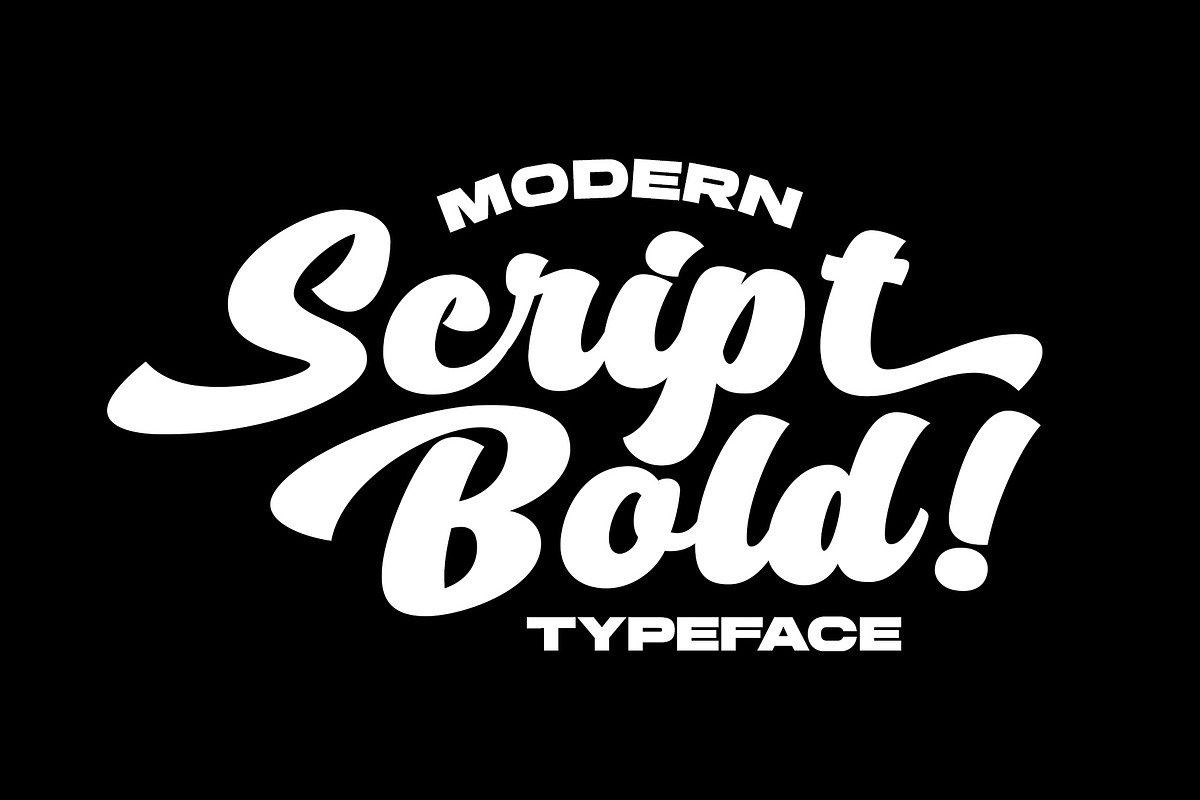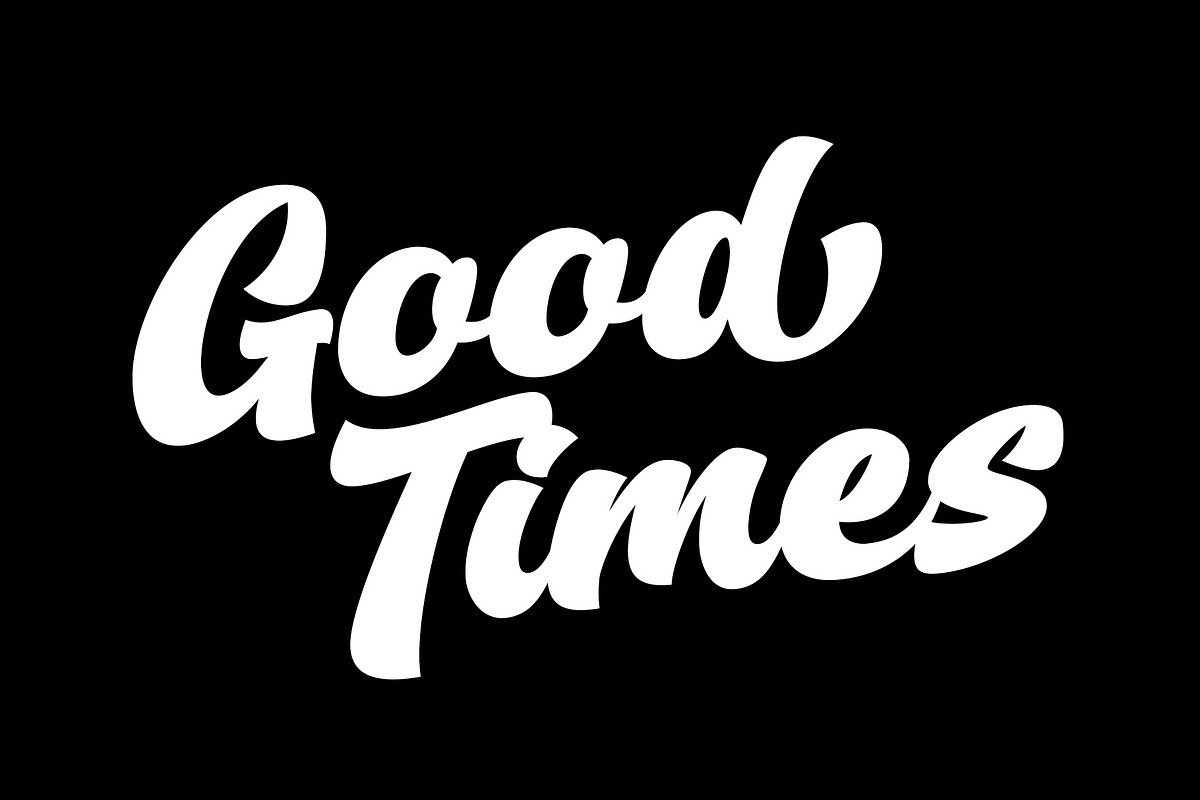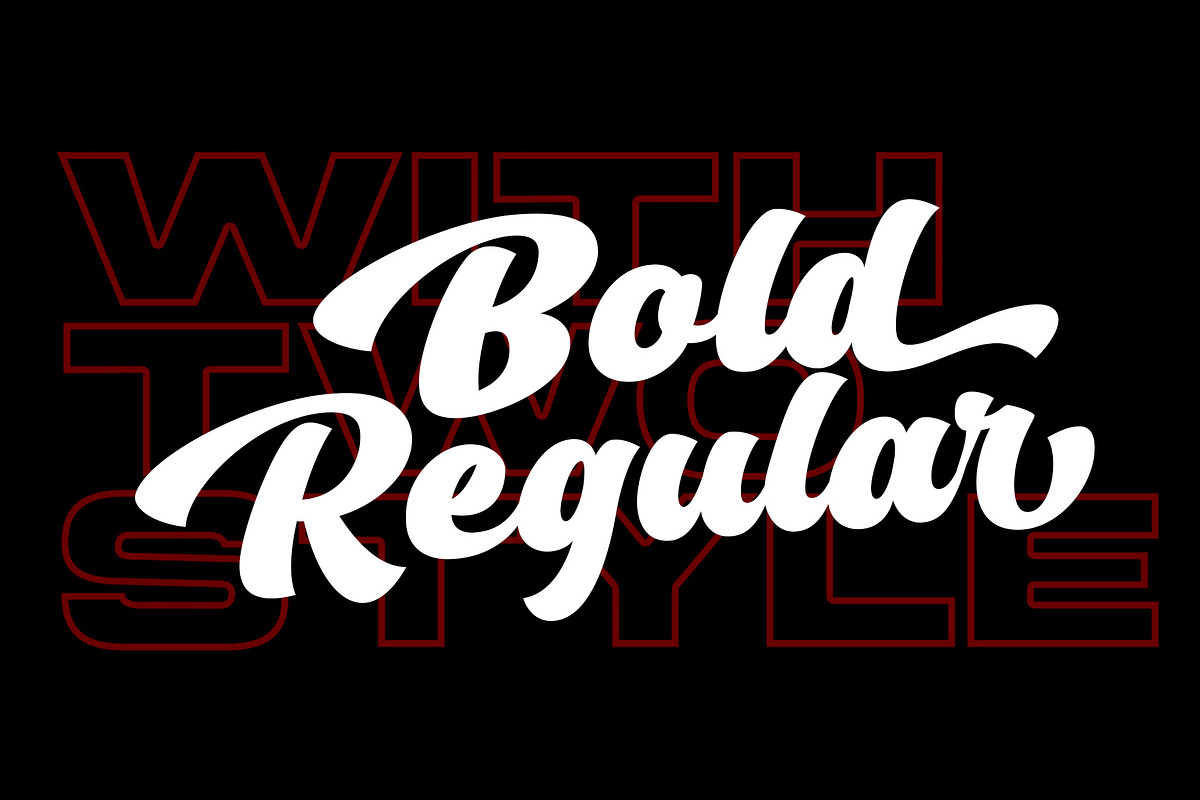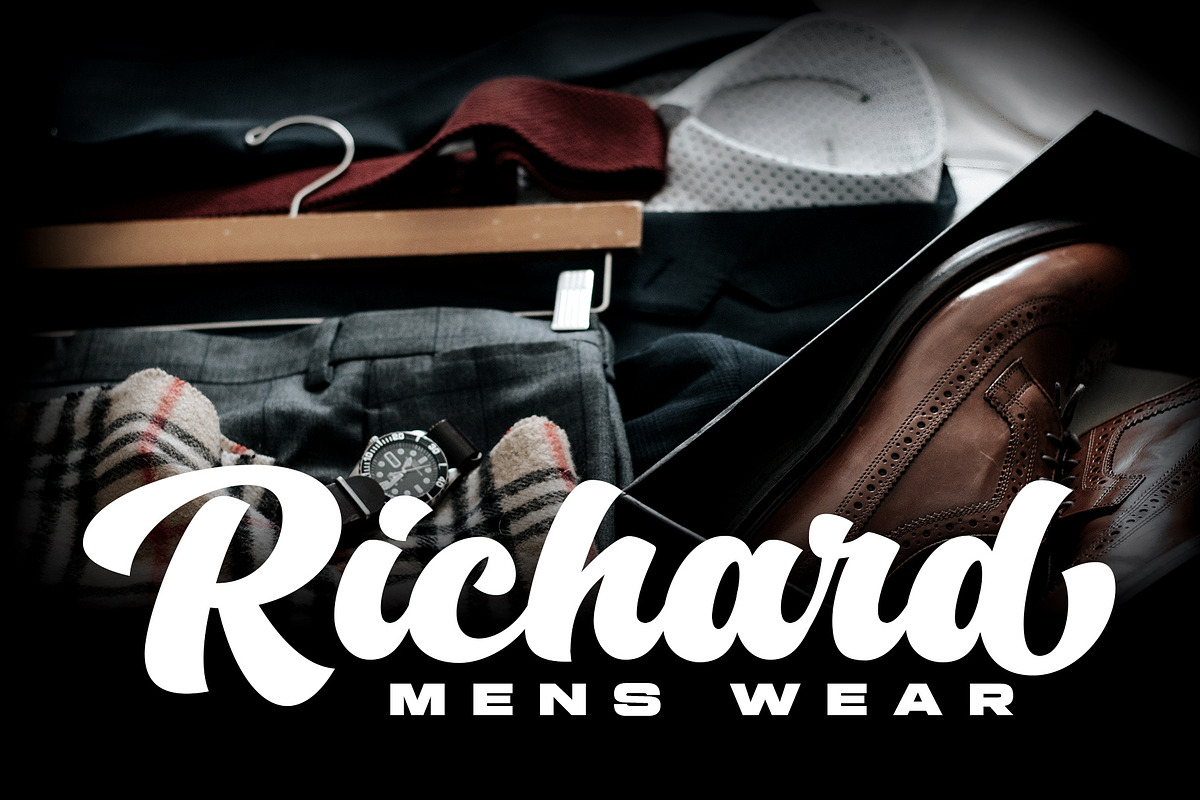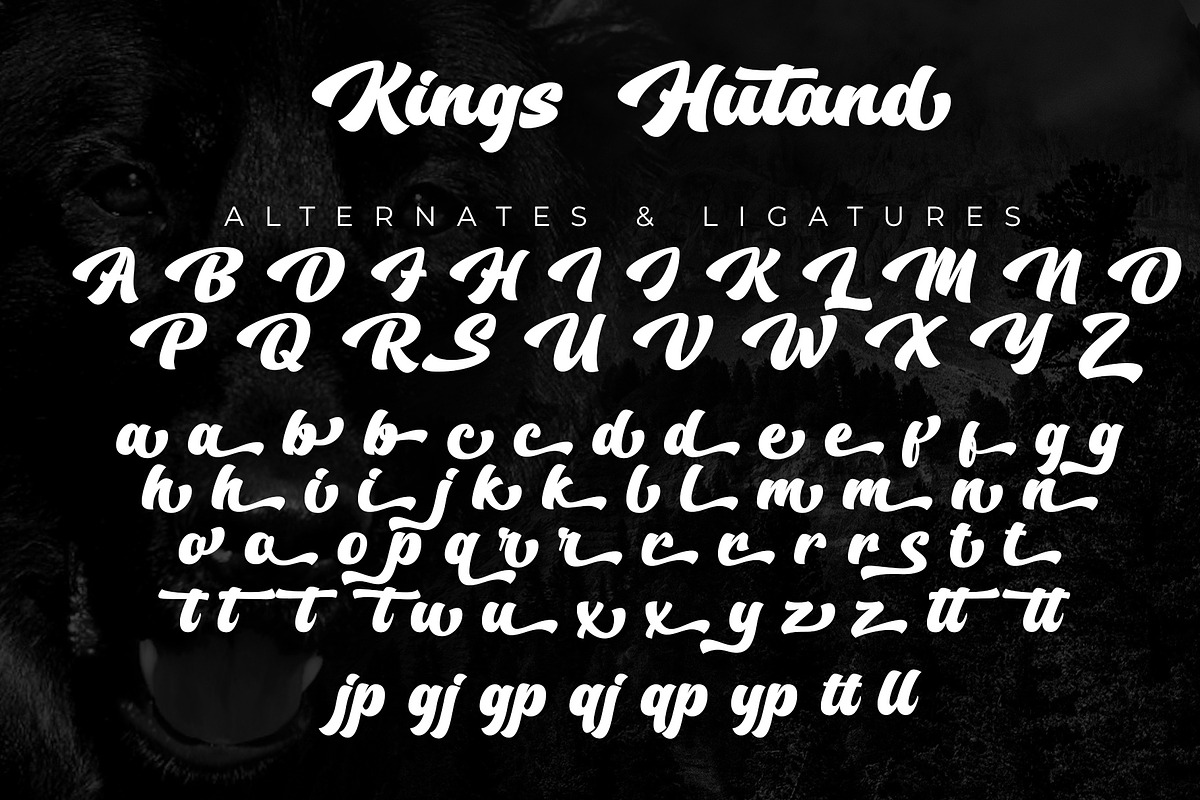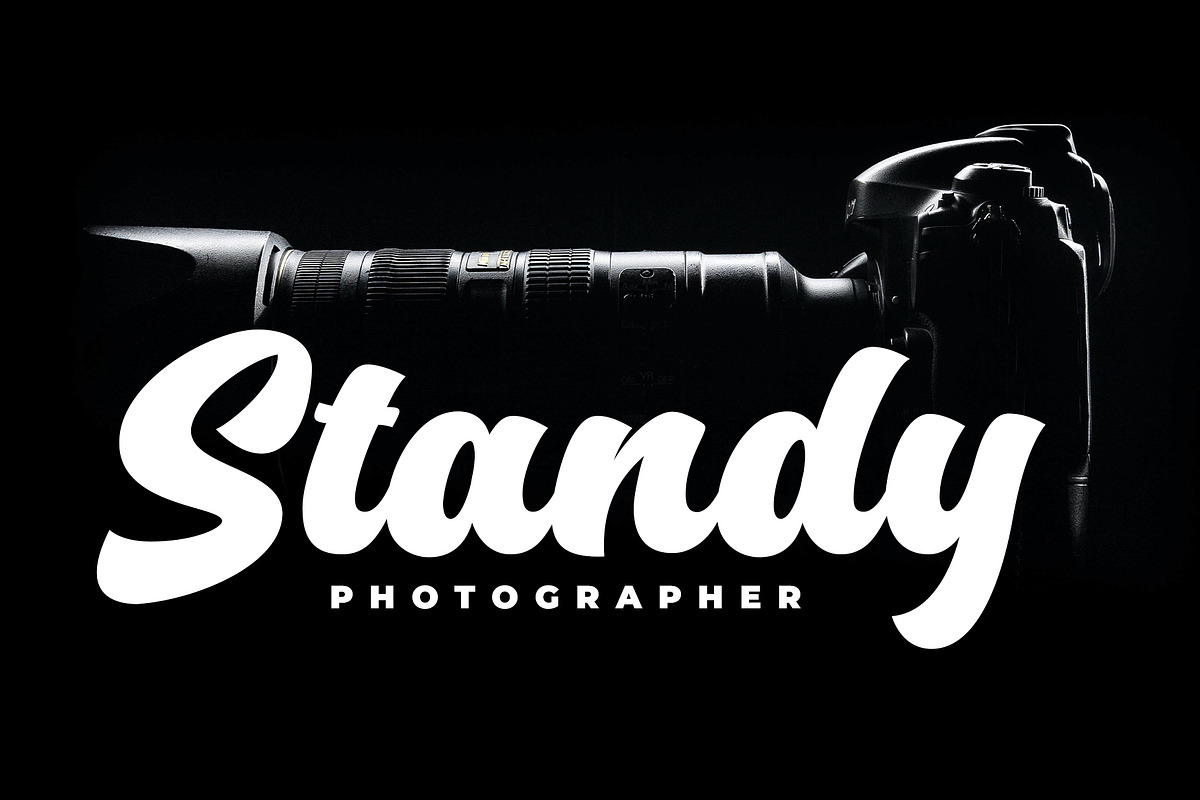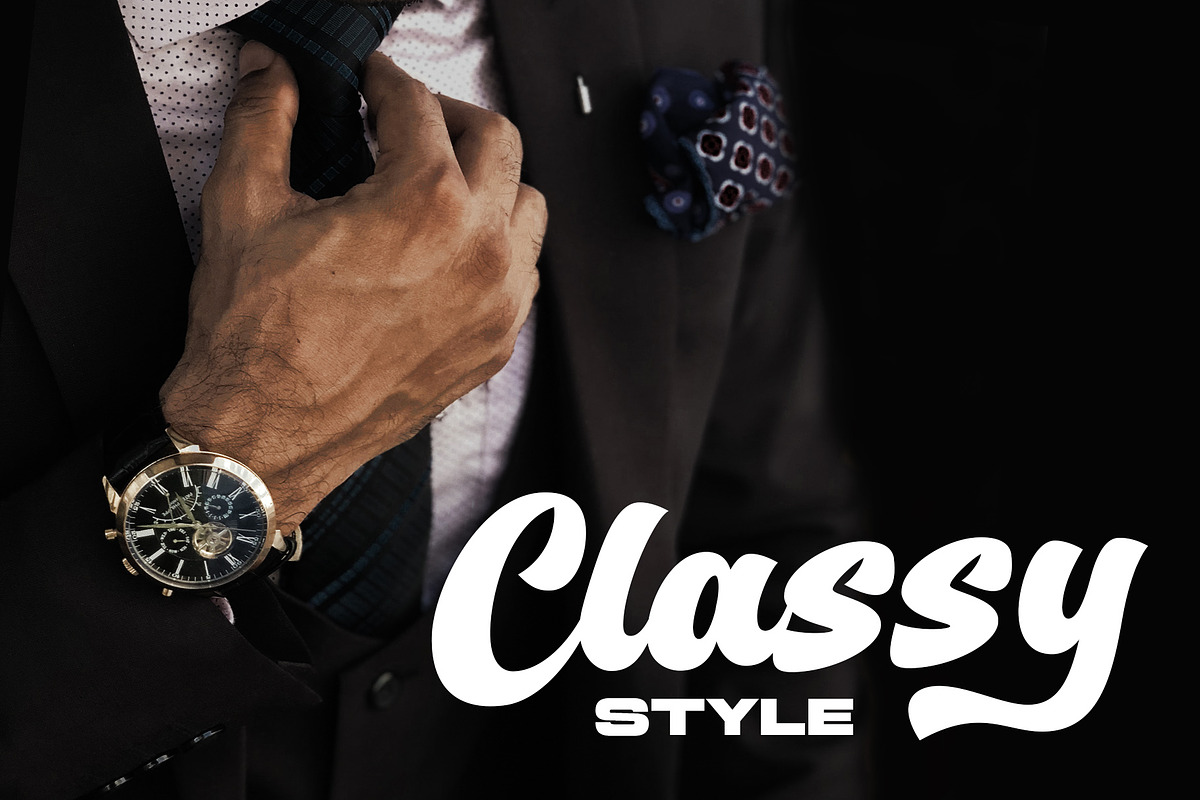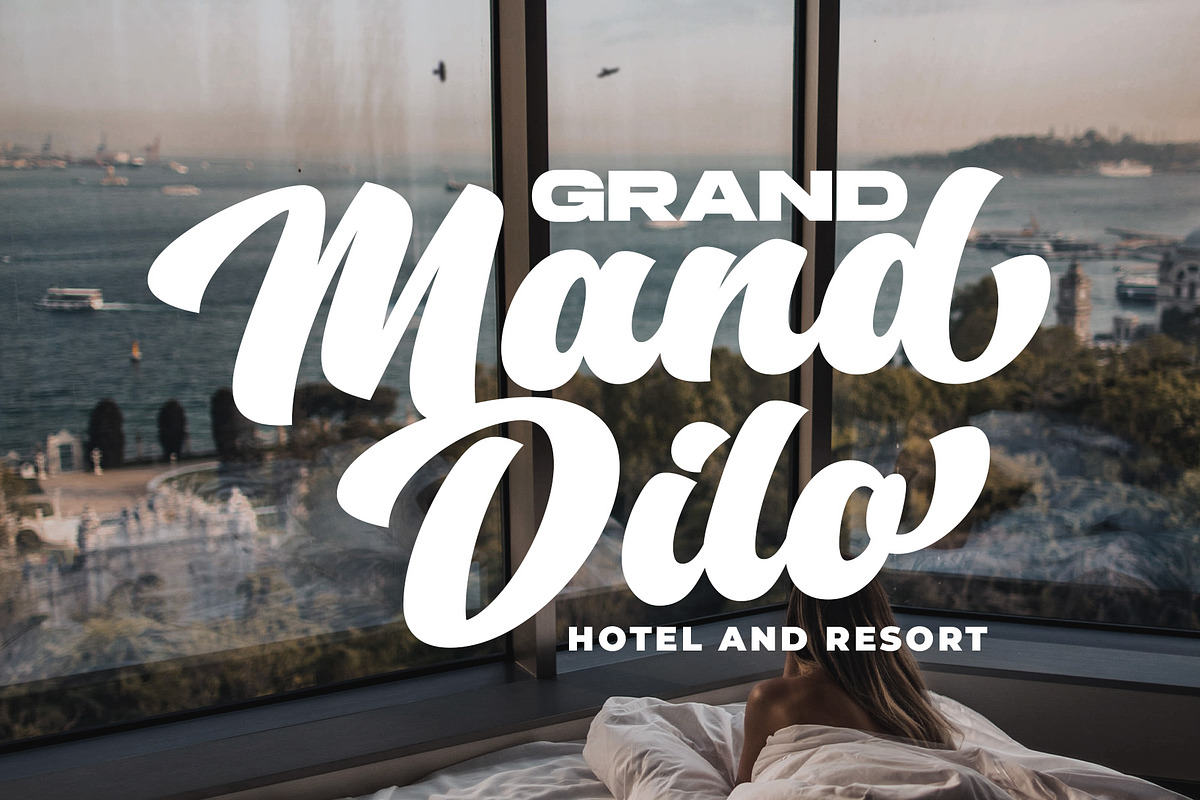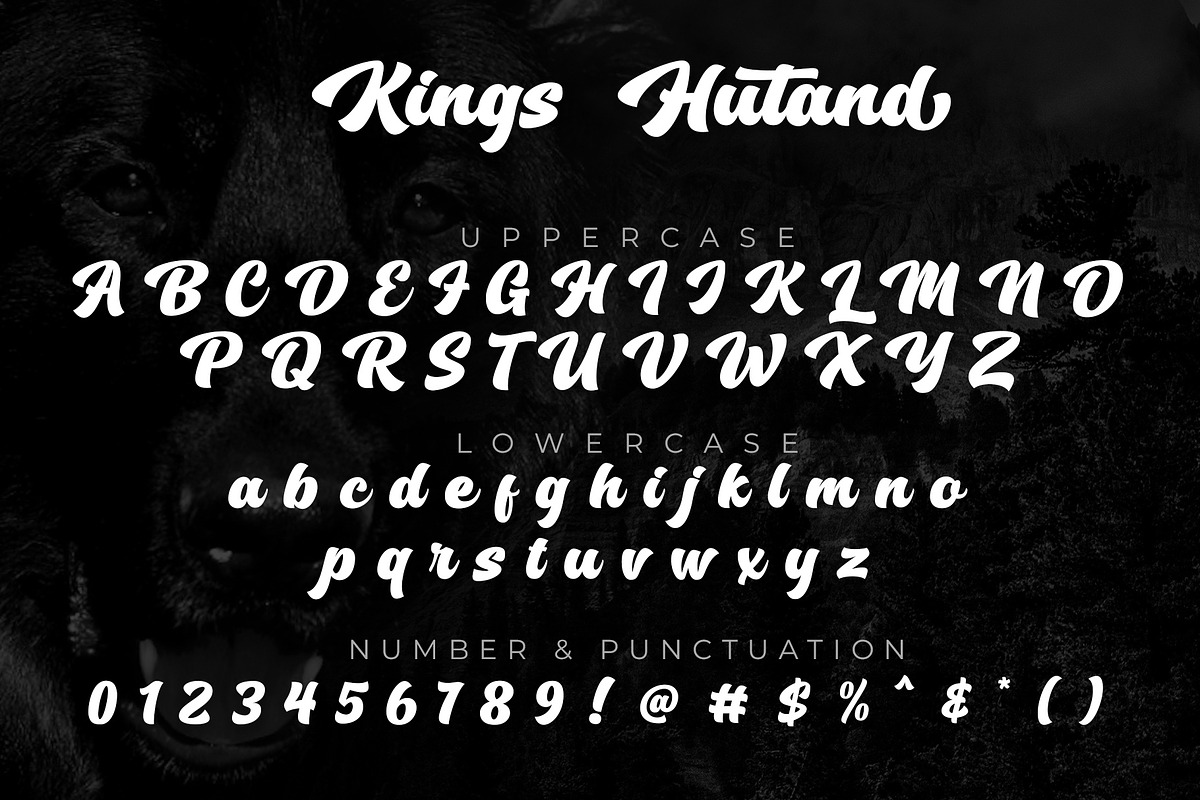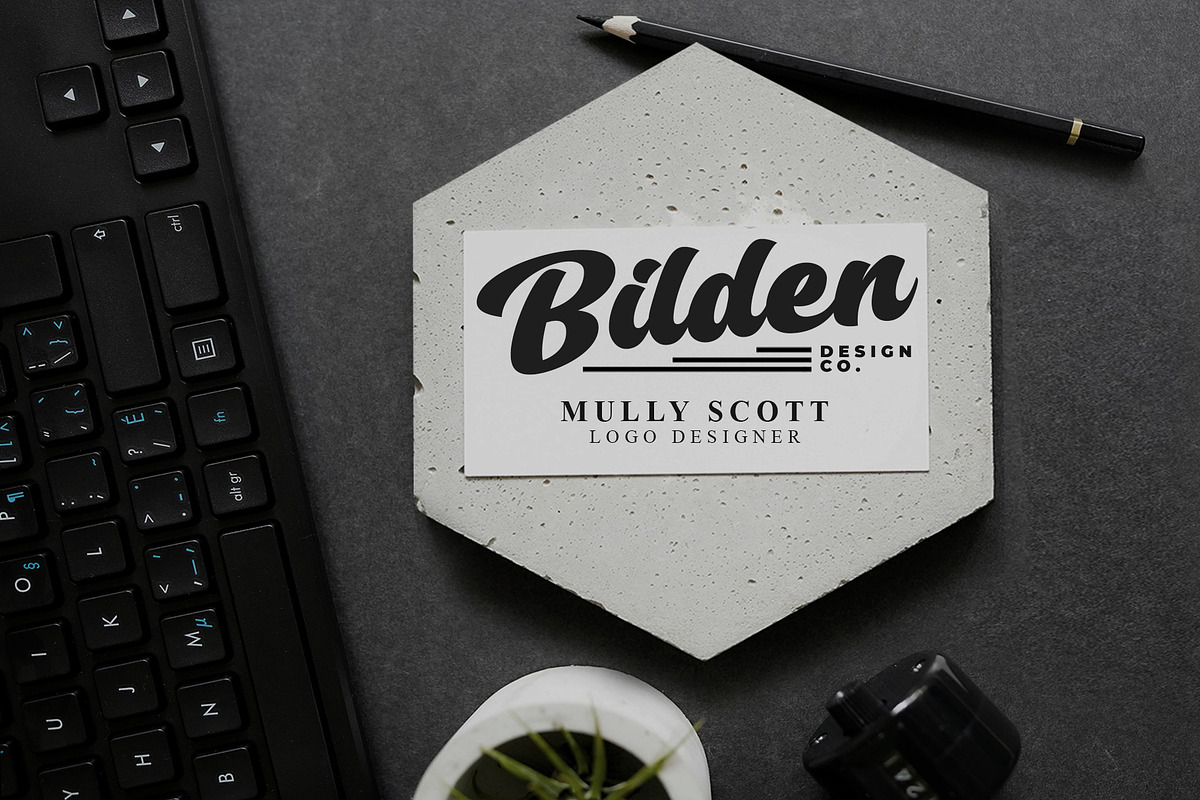
Kings Hutand Modern Bold Script
Kings Hutand is a script type family of two fonts, a modern script font with bold style and modern looks. Have a unique style that will make your design look iconic. Kings Hutand can be used for logo, branding, packaging and and anything that requires bold script font. This font has of alternative characters,swashes, and ligatures that will make your design unique and beautiful.